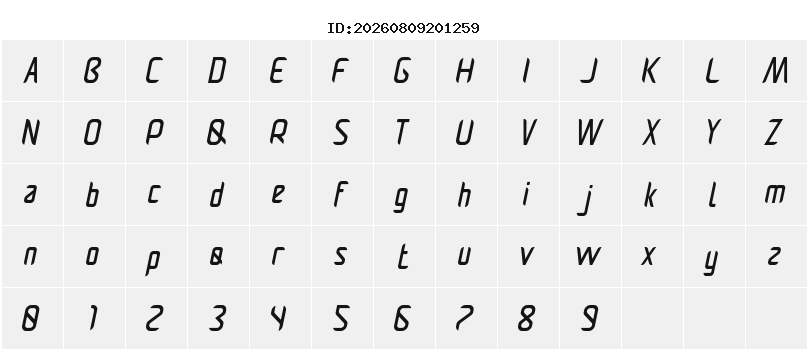
• Font Name: Pamekasan
• Designer: Mukhlis Risani
About Pamekasan.ttf
Pamekasan.ttf is a modern, elegant sans-serif font designed for ultimate readability and visual harmony. Perfect for branding, headlines, web design, and print materials.